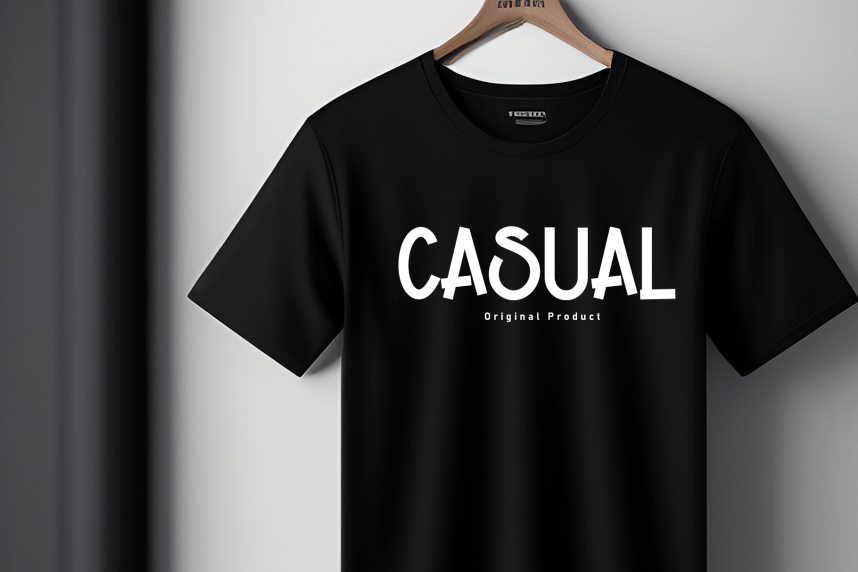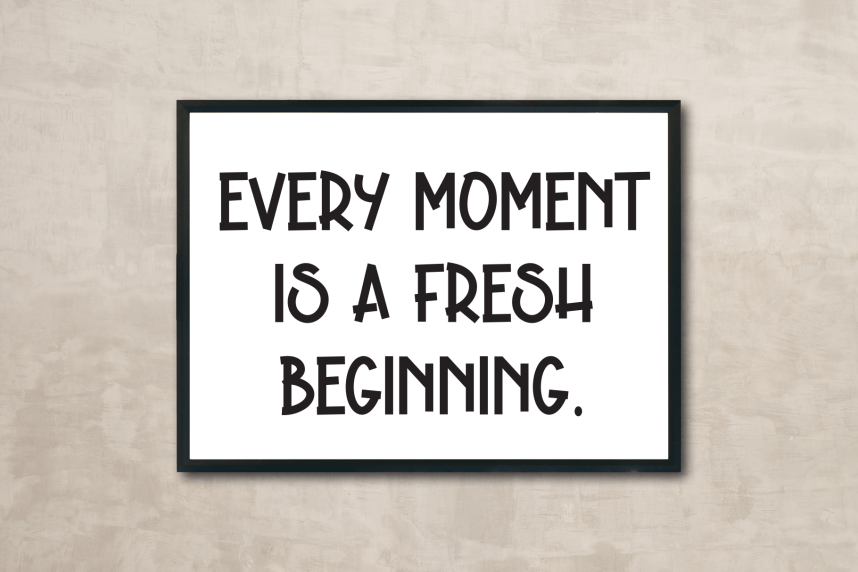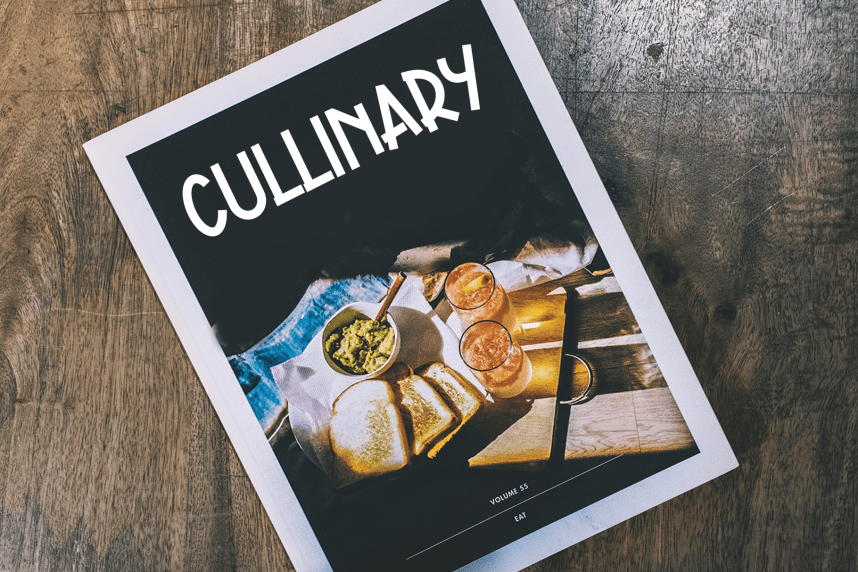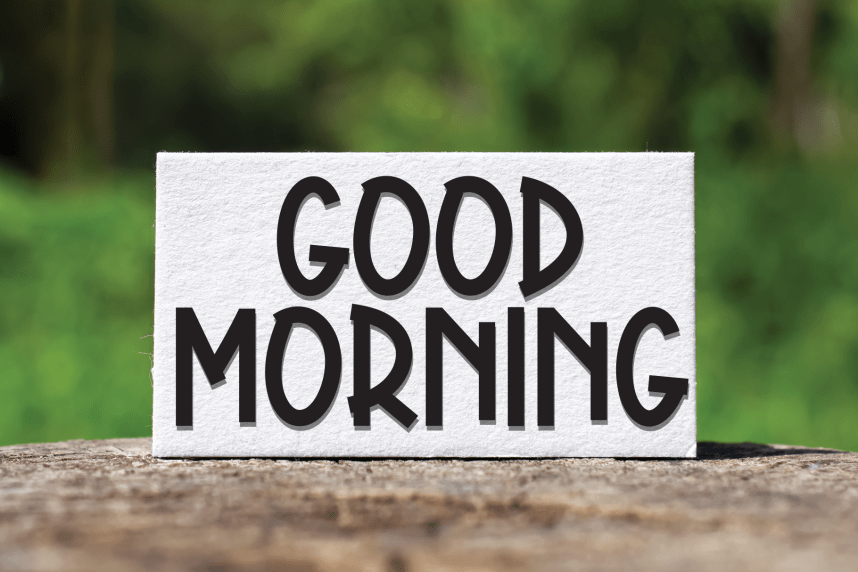
Summer Graduation – Creative Style Font is a sweet and friendly handwritten display font. Cute and fun, this font is ideal for writing wedding invitations, cards, or any other design that might need a playful touch!